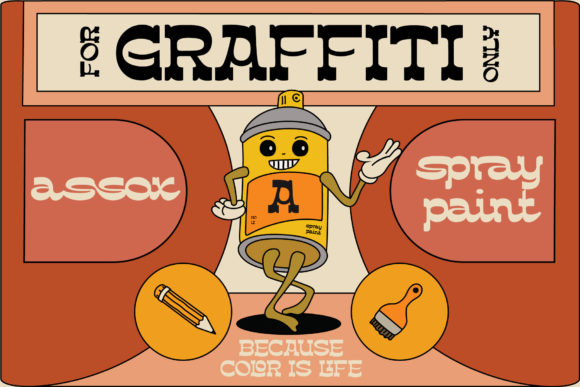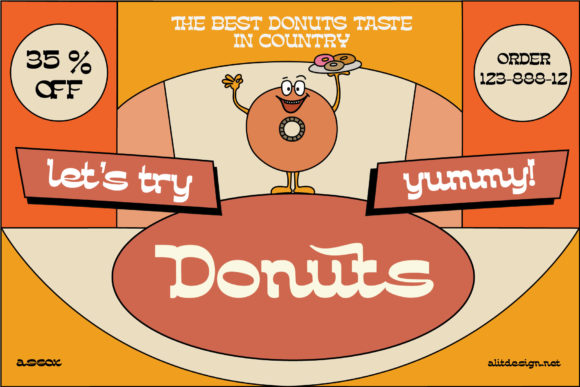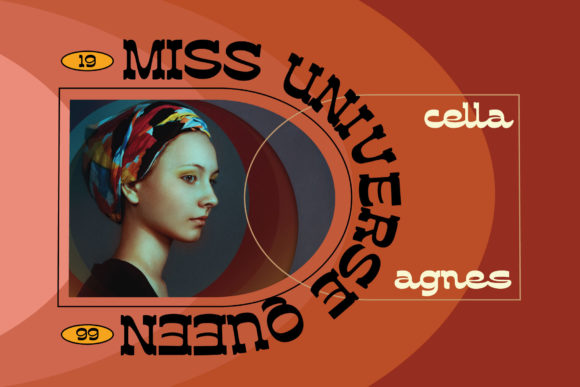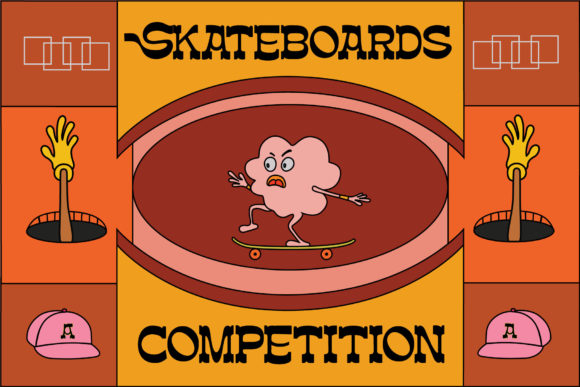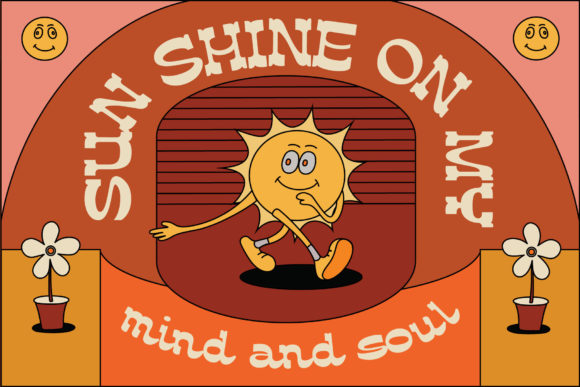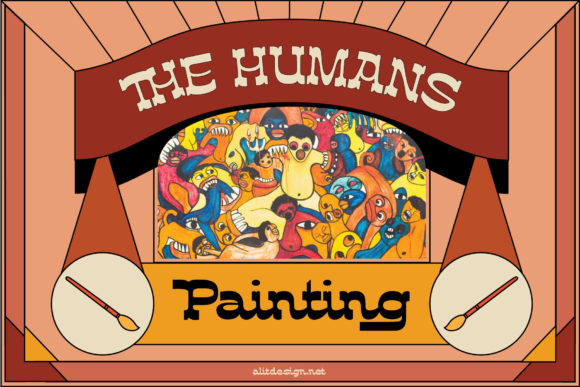
The Perfect Font to Elevate Your Designs
Have you ever stumbled upon a font that instantly sparks creativity and makes you think outside the box? For designers, this moment is a treasure trove of inspiration, and it’s exactly what the Assox Font promises to deliver. Imagine adding a dash of whimsy and playfulness to your next project, and watching it come alive with a unique, vintage charm.
The Assox Font is a delightful display font that’s sure to brighten up your designs. Its organic, quirky feel makes it perfect for adding a touch of personality to your work. Whether you’re creating a logo, poster, or social media graphic, this font is a valuable addition to your toolkit. With its confident, eye-catching style, the Assox Font is sure to elevate your designs and leave a lasting impression.
Assox Font Key Features
- Unique Characteristic: Assox Font features a unique blend of modern and vintage elements, making it perfect for creating eye-catching and memorable designs.
Assox Font Review
Overall, I found Assox Font to be a unique and interesting choice for designers. Here are some things that I think work well:
- ✨ Elegant and refined aesthetic, perfect for creating a sophisticated look
- ✨ Wide range of languages supported, making it a great option for global projects
- ✨ Customizable and scalable, allowing designers to adjust the font to fit their needs
- ⚠️ Some characters may not display correctly on certain devices or platforms
- ⚠️ Limited availability of some language packs, which may cause issues for certain projects
- ⚠️ May not be suitable for use in body text, as it can be quite ornate and difficult to read in large quantities
Overall, I think Assox Font is a solid choice for designers who want to add a touch of elegance and sophistication to their projects. While it may not be perfect, its unique aesthetic and range of features make it a worthwhile consideration. Just be aware of the potential limitations and plan accordingly.
The Assox Font is ideal for:
- Creatives and designers looking for a unique, modern font.
- Brands seeking to establish a strong visual identity.
- Designers who want to add a touch of sophistication